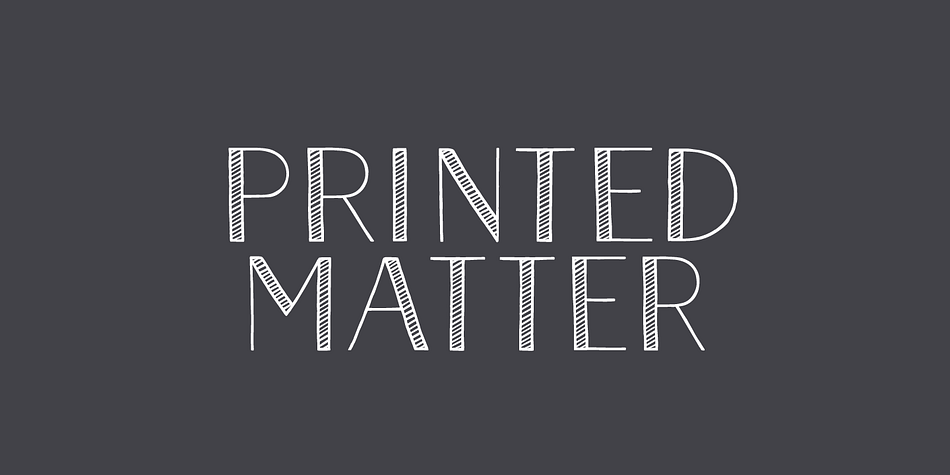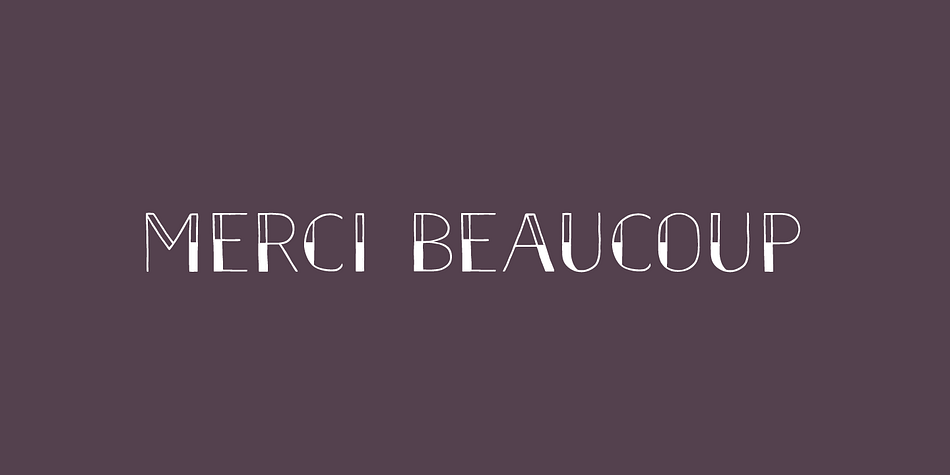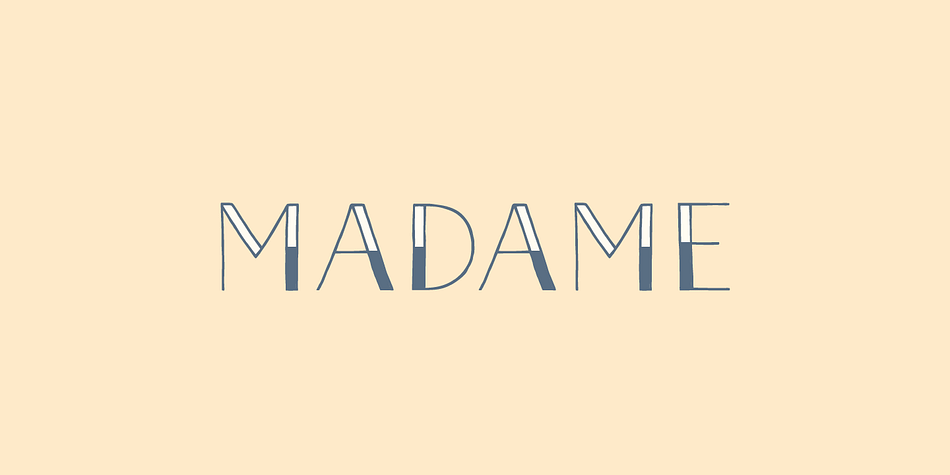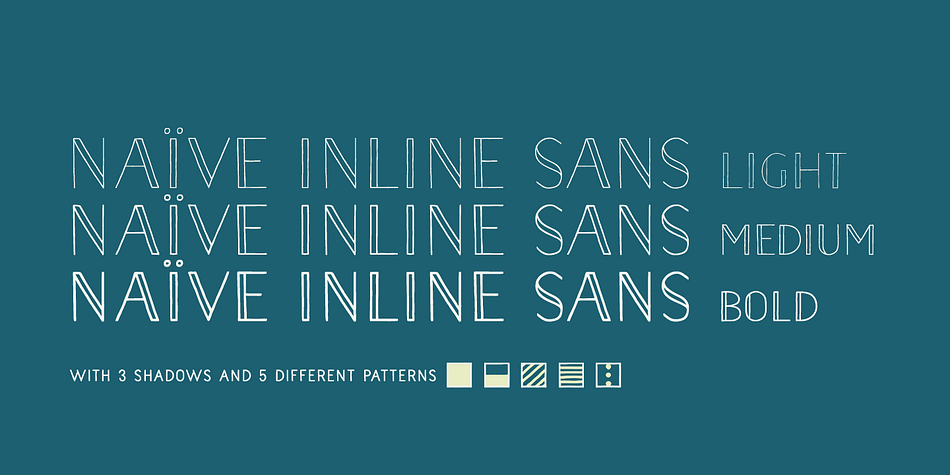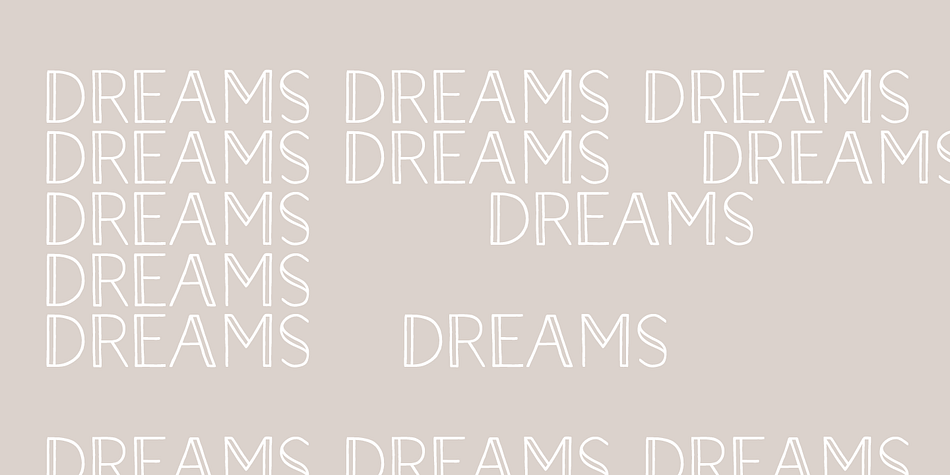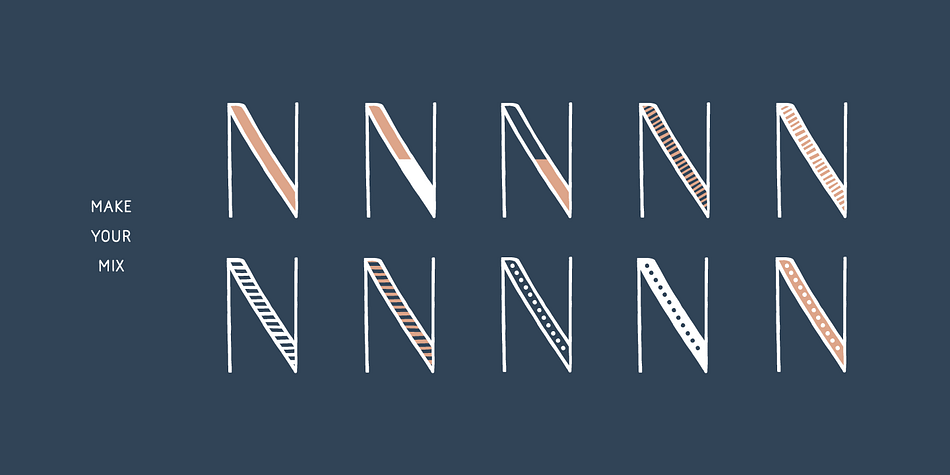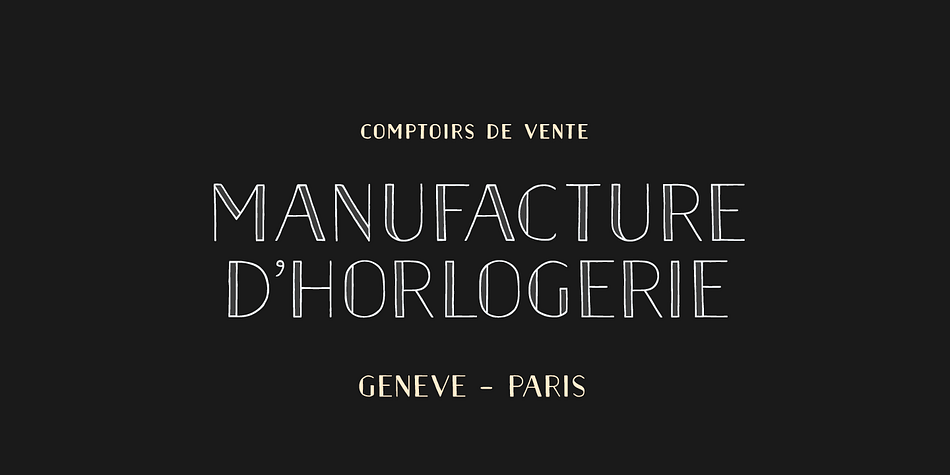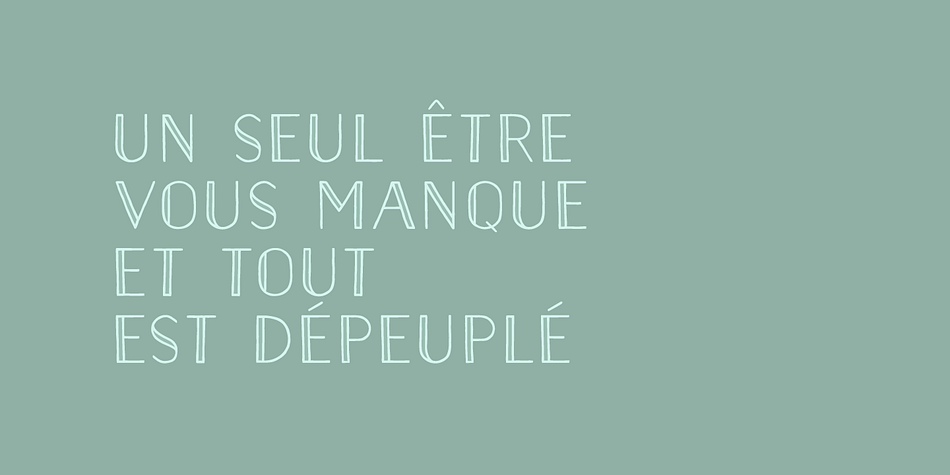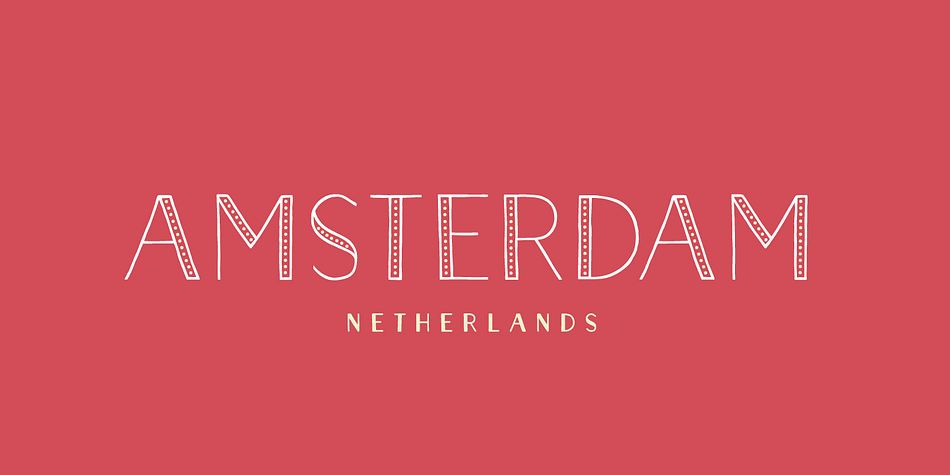
Naive Inline Sans is a display sans and hand display font family. This typeface has eleven styles and was published by S&C Type.
Naïve Inline Sans is a layered sans serif handwritten font designed by Fanny Coulez and Julien Saurin in Paris. Our goal was to draw a font with finely irregular lines that give a human and whimsical feeling.
We designed three weights to assure a good readability whatever the size. They can be enhanced with five different interior patterns and three shadows to improve your designs and bring a charming and unusual feeling. To do so, you can simply superimpose the layers with a compatible software like Photoshop, the weight above and the pattern(s) below, then choose a color for each.